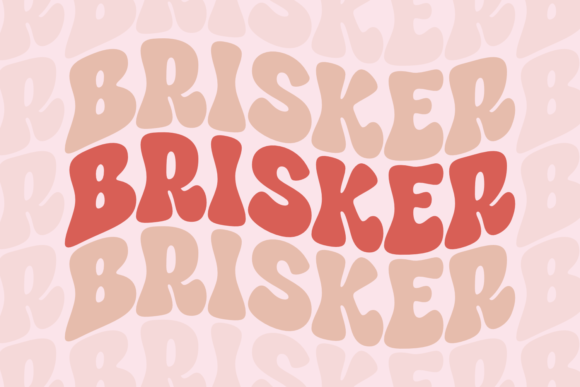
The Ultimate Guide to Brisker Font: Unleash Your Creativity with this Retro-Style Display Font
I’ll never forget the time I was working on a project to create a vibrant poster for a music festival. I had all the graphics and colors sorted out, but I was stuck on finding the perfect font to capture the playful, retro vibe of the event. That’s when I stumbled upon Brisker Font, a thick and groovy display font that instantly brought my design to life! In this article, I’ll share my love for Brisker Font, its features, and how to make the most of it in various design platforms.
An Honest Review of Brisker Font
What I Love About Brisker Font ✨
• 💥 **Impactful and Attention-Grabbing**: Brisker Font is perfect for making a statement with your typography. Its thick and bold strokes ensure that your text stands out, whether it’s on a poster, t-shirt, or social media graphic.
• 🎨 **Versatile and Creative**: This retro-style font is incredibly versatile and can be used for a wide range of projects, from cheerful invitations to bold headlines.
• 👍 **Easy to Read**: Despite its boldness, Brisker Font remains surprisingly easy to read, making it perfect for short phrases or titles.
• 🤝 **Great for Branding**: The unique and playful style of Brisker Font can help you establish a strong brand identity that’s fun and engaging.
While Brisker Font is an amazing display font, it’s not without its limitations. ⚠️ Keep in mind that:
• Due to its bold and thick strokes, Brisker Font may not be the best choice for body text or long paragraphs.
• Some of the more intricate details may get lost at smaller font sizes.
The Backstory of Brisker Font
While the origins of Brisker Font are shrouded in mystery, it’s said that the font was inspired by the iconic typography of the 1970s and 1980s. The designer, fueled by a passion for retro aesthetics and a love for bold, playful typography, created Brisker Font as a way to bring fun and creativity to the world of design.
Q: What type of projects is Brisker Font best suited for?
Brisker Font is perfect for projects that require a bold, playful, and attention-grabbing font, such as posters, t-shirts, invitations, and social media graphics.
Q: Is Brisker Font available in different weights or styles?
Currently, Brisker Font is available as a single font, but its bold and thick strokes make it perfect for creating impactful text. You can experiment with different font sizes, colors, and effects to achieve the desired look.